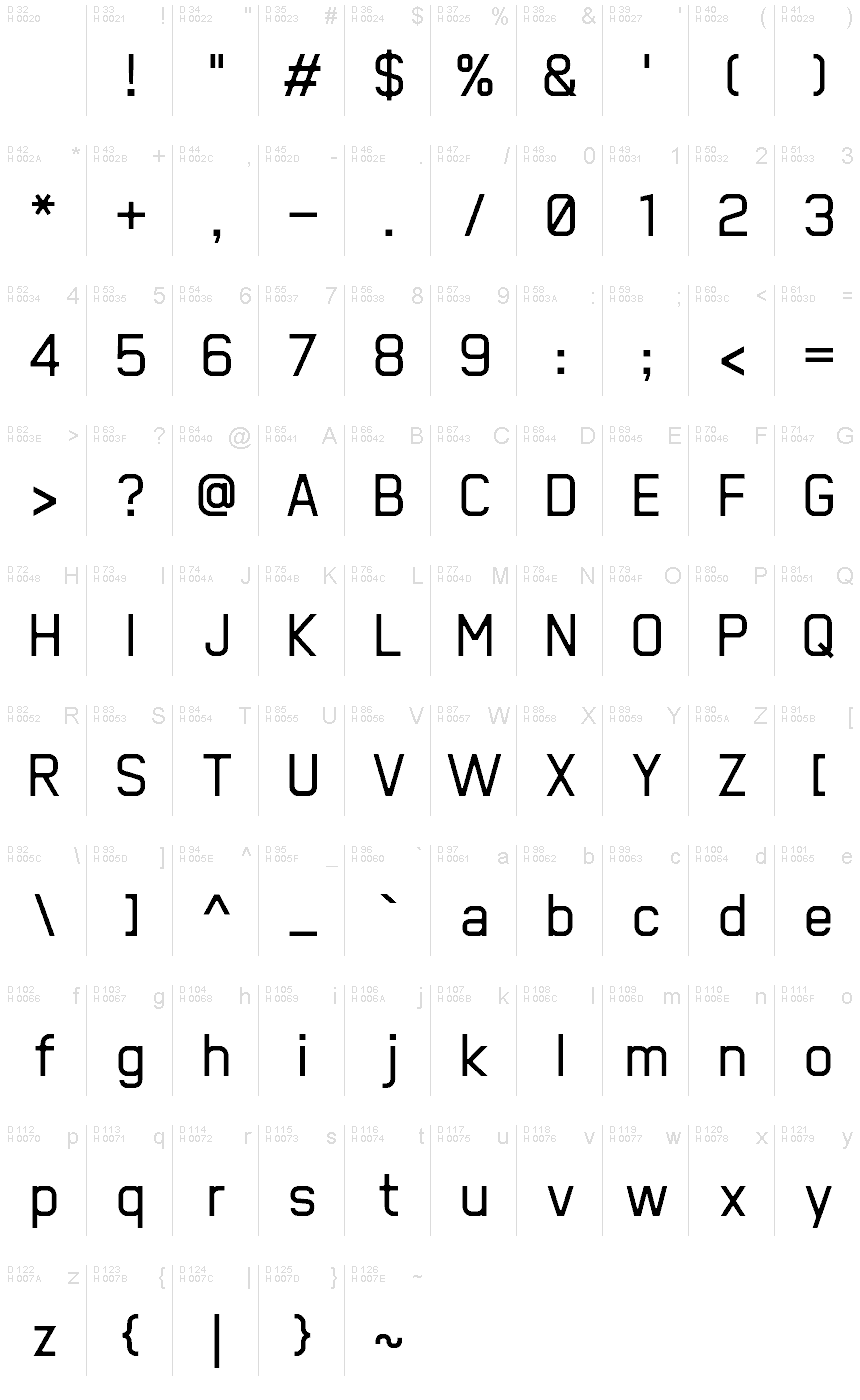
ACES07_Regular
ACES07 font by Ace Combat is a modern sans serif typeface with clean angular lines. A futuristic style is manifested in its interesting geometric letter structure which has an unusual visual effect that makes it one of a kind.